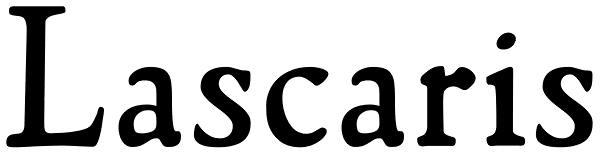
Lascaris
Lascaris is a digital rendition of Janus Lascaris' type of 1494-1496, one of the earliest extant non-Aldine polytonic Greeks. The accompanying Roman, quirky and rich in color, was modeled on humanist types of late 15th century Florentine incunabula...